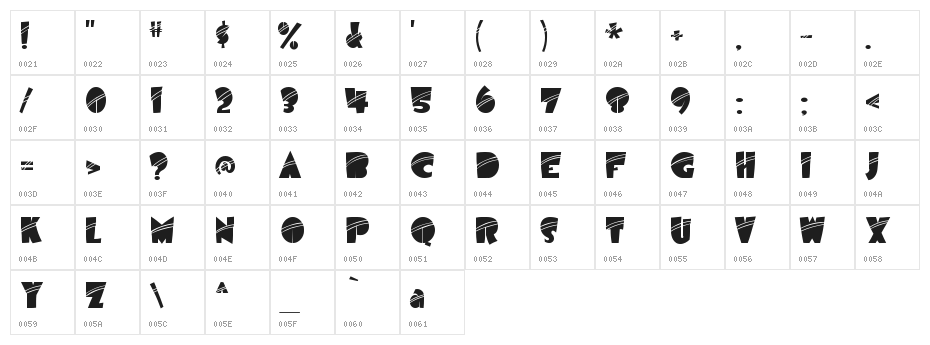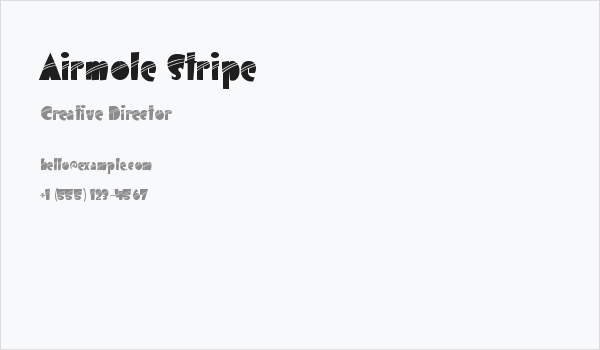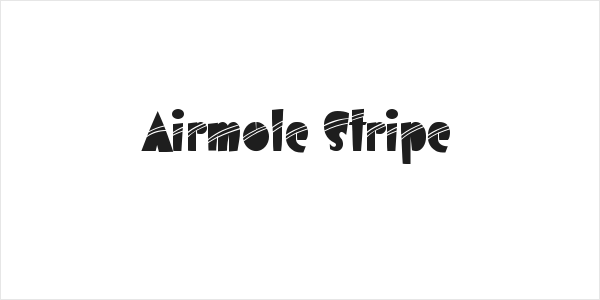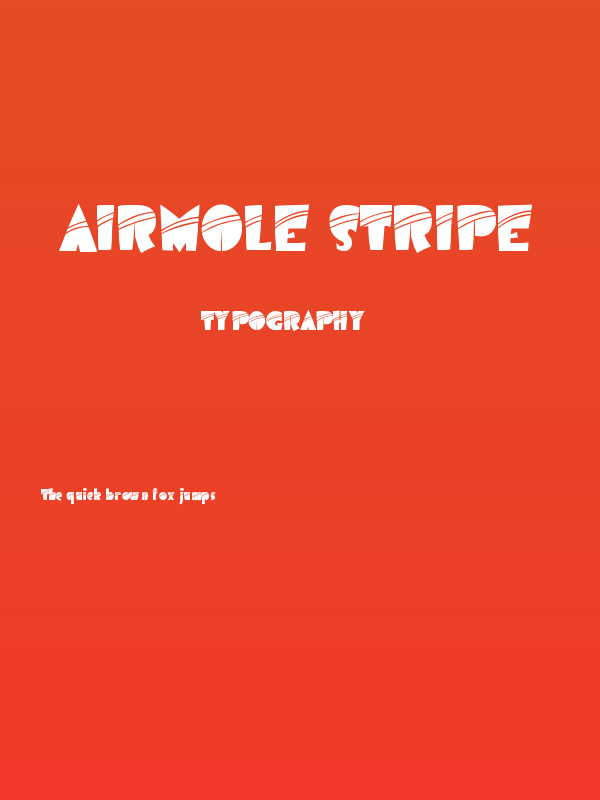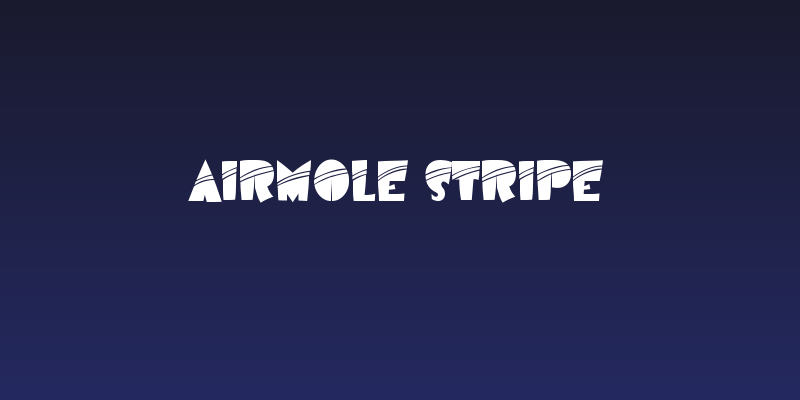
Airmole Stripe Font
Airmole Stripe Description
This font features a bold and striking design with a unique striped pattern running through each character, creating a sense of movement and dynamism. The uppercase and lowercase letters maintain a consistent style, with sharp angles and geometric shapes that give it a modern and edgy appearance. The numbers and special characters are equally bold, ensuring a cohesive look across all text elements. The font's distinct style makes it ideal for attention-grabbing headlines and creative projects that require a strong visual impact.
Proposed ProjectsIdeal for posters, branding, logos, and any design project that requires a bold statement.